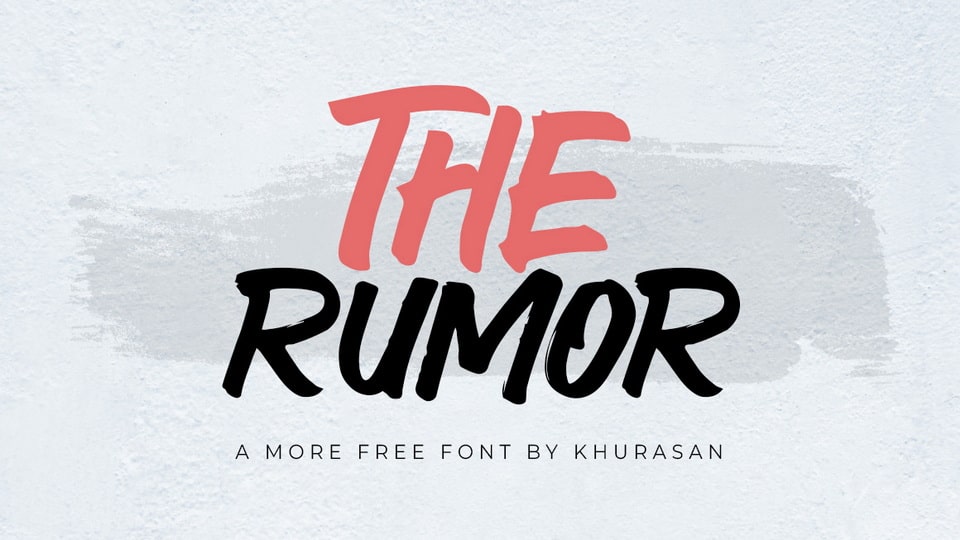
Download The Rumor font, a modern hand lettered brush typeface. The Rumor is perfect for posters, logos, magazines, book covers, banners, and many more eye-catching designs.